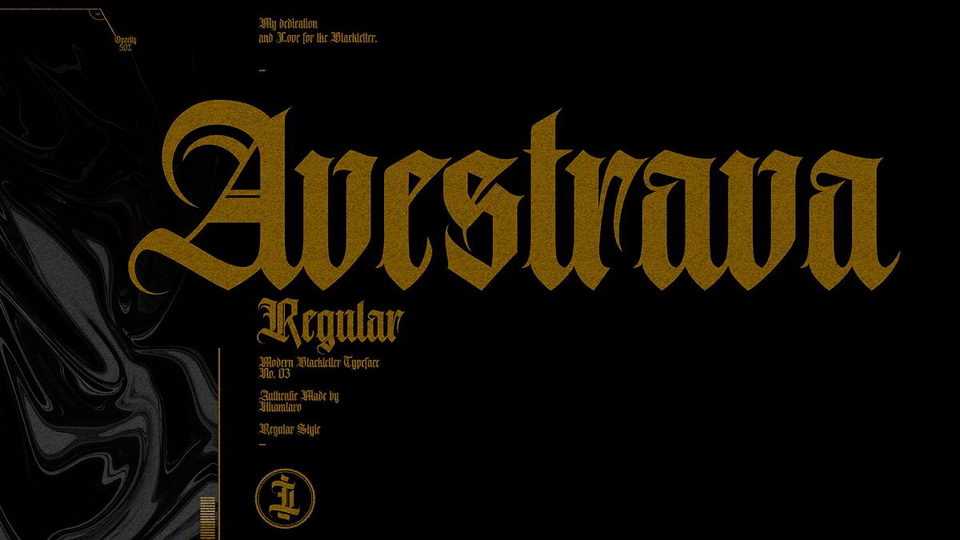
Download Avestrava font, a typeface inspired by Old English letters, with the basic form of the blackletter turned to the modern era. Avestrava font is perfect for making logotypes, tattoo logos and designs, t-shirts, liquor labels, band posters and covers designs and many more.